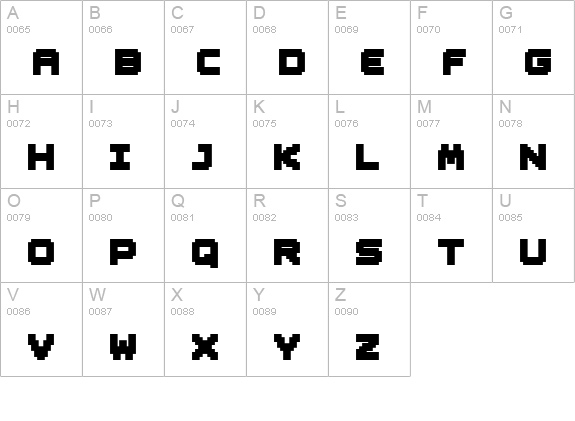
Blackgold ExtraBold Font Details
Blackgold ExtraBold is an extra-heavy, attention-grabbing variant in the Blackgold typeface family \xE2\x80\x94 well suited to high-impact headlines, posters, and bold branding.
Introducing Blackgold ExtraBold font - a striking and powerful typeface that commands attention with its bold and robust design. Perfect for making a statement in headlines, logos, posters, and more, this versatile font exudes confidence and modernity. With its sleek and sophisticated appearance, Blackgold ExtraBold adds a touch of elegance to any project while maintaining a strong and impactful presence. The clean lines and sharp edges of this font give it a contemporary edge that is sure to captivate your audience. And the best part? Blackgold ExtraBold is available for free download at FontsMarket.com. So you can elevate your designs with this premium font without breaking the bank. Don't miss out on the opportunity to add this exceptional typeface to your collection and take your creations to the next level.